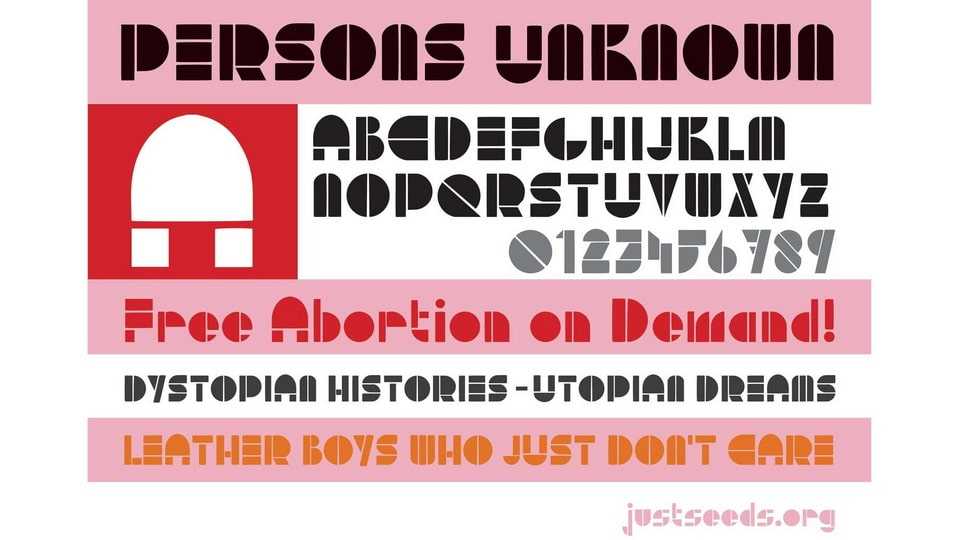
Download Persons Unknown font, a sleek and sophisticated display typeface that seamlessly blends the precision of geometric shapes with the versatility of modular design.